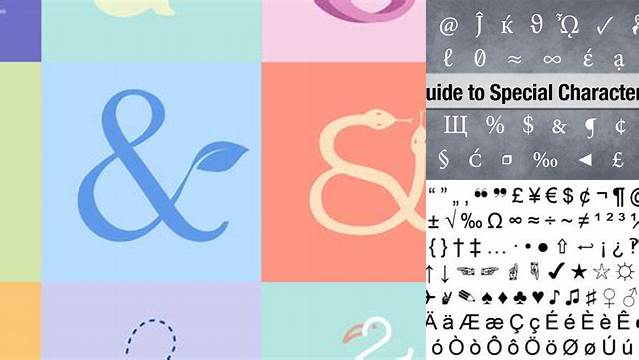
Symbol Fonts: The Complete Guide For Creative Typography
Introduction: Diving into the World of Symbol Fonts
Hey guys! Ever found yourself needing a specific symbol that just isn't on your keyboard? Or wanted to add a unique flair to your designs? Well, you've stumbled upon the right place! Symbols fonts are your gateway to a vast universe of special characters, dingbats, and glyphs that go beyond the standard alphabet and numbers. These fonts are not just about letters; they're about visual communication, expression, and adding that extra touch to your projects. This ultimate guide will walk you through everything you need to know about symbol fonts, from what they are and how they work, to how you can use them to create stunning designs and documents. So, let's jump right in and unlock the power of these fantastic fonts!
In essence, symbol fonts are font families where each character slot is assigned to a symbol, icon, or dingbat instead of a letter, number, or punctuation mark. Think of them as the Swiss Army knives of the typography world, offering a diverse set of tools for visual expression. These fonts can include anything from arrows and bullets to decorative elements, mathematical symbols, and even tiny pictures. The beauty of symbol fonts lies in their versatility. They can be used in a multitude of applications, from graphic design and web development to word processing and presentations. Whether you're creating a logo, designing a website, or just trying to make your resume stand out, symbol fonts can be a game-changer. The symbols are scalable just like any other font character, meaning they can be resized without losing quality. This makes them ideal for use in both print and digital media. Plus, because they are treated as characters, they can be easily styled with different colors, sizes, and effects, giving you even more creative control. Symbol fonts are particularly useful when you need to incorporate specific icons or symbols consistently across a project. Instead of relying on images, which can become pixelated or require additional file management, symbol fonts allow you to use symbols as easily as you would type a letter. This can streamline your workflow and ensure a consistent look and feel throughout your work. They also offer a level of customization that’s hard to achieve with other methods. You can combine different symbols, layer them, and manipulate them in various ways to create unique designs. This makes them an invaluable tool for designers and creatives looking to push the boundaries of visual communication. The best part is that many symbol fonts are available for free, making them accessible to anyone. So, whether you're a professional designer or just starting out, exploring the world of symbol fonts can open up a whole new realm of creative possibilities. Get ready to enhance your projects with a touch of unique visual flair! We'll cover everything from finding the right fonts to using them effectively, ensuring you can make the most of these versatile typographic tools. So, stick around and let's dive deeper into the fascinating world of symbol fonts!
Understanding the Basics of Symbol Fonts
Okay, let's break it down, folks! What exactly are symbol fonts, and how do they actually work? At their core, symbol fonts are typefaces that contain symbols and glyphs instead of traditional letters, numbers, and punctuation marks. Imagine a font where every key you press doesn't produce a letter but instead generates a unique icon, shape, or decorative element. That's the magic of symbol fonts! They expand your typographic toolkit beyond the standard character set, allowing you to add visual interest and communicate in ways that words simply can't. These fonts are built using the same technology as regular fonts, which means they can be scaled to any size without losing quality. This is a huge advantage, especially when you need to use symbols in various contexts, from small icons in a user interface to large decorative elements in a poster. The symbols within these fonts are treated as characters, so you can easily change their color, size, and other attributes using your design software. This flexibility is what makes symbol fonts so powerful and versatile. Unlike images, which can become pixelated when resized, symbols from fonts remain crisp and clear at any scale. This ensures that your designs look professional and polished, no matter how they are displayed or printed. Plus, symbol fonts are easy to integrate into your workflow. Once installed on your system, they can be accessed from any application that supports font selection. This means you can use them in word processors, graphic design software, web development environments, and more. The process of using symbol fonts is also straightforward. You simply select the font in your application and then use a character map or glyph panel to browse the available symbols. Once you find the symbol you want, you can insert it into your document or design just like you would a regular letter. Many applications also support keyboard shortcuts for frequently used symbols, making the process even faster. In addition to their technical advantages, symbol fonts also offer a wide range of creative possibilities. They can be used to add visual hierarchy to your text, create custom bullet points and lists, design unique logos and icons, and even build entire illustrations. The symbols themselves can vary widely, from simple geometric shapes and arrows to intricate illustrations and decorative elements. This diversity allows you to find the perfect symbol for any project, whether you're creating a minimalist design or a complex visual composition. Understanding the basics of symbol fonts is the first step to unlocking their potential. Once you grasp how they work and what they can do, you'll be able to use them effectively in your own projects. So, let's keep exploring the fascinating world of symbol fonts and discover how you can incorporate them into your creative toolkit. Next up, we'll dive into the various types of symbol fonts available and how to choose the right one for your needs. Stay tuned!
Types of Symbol Fonts: Exploring the Variety
Alright, let's get into the nitty-gritty of symbol fonts! Did you know there's a whole universe of different types out there? It's not just a one-size-fits-all situation, guys. Understanding the various types of symbol fonts will help you choose the right one for your specific needs and projects. So, let's explore the awesome variety available! Firstly, we have Dingbat fonts. Think of these as the OGs of symbol fonts. Dingbats are fonts that contain a collection of symbols, icons, and decorative elements instead of letters. They can include anything from arrows and bullets to stars and flowers. Dingbat fonts are fantastic for adding visual flair to documents, creating custom bullet points, and designing eye-catching graphics. They are often used in print design, but they can also be used in web design and other digital applications. Next up are Icon fonts. These fonts are specifically designed to contain a set of icons, typically for use in user interfaces and web design. Icon fonts are a super efficient way to include scalable icons in your projects. Instead of using image files, which can slow down page load times and become pixelated when resized, icon fonts allow you to use icons as characters, which scale seamlessly and can be styled with CSS. This makes them ideal for creating responsive designs that look great on any device. Common icon font sets include icons for navigation, social media, and various other UI elements. Then, there are Pictogram fonts. Pictogram fonts are similar to icon fonts, but they often include more detailed and illustrative symbols. These fonts can be used to create infographics, diagrams, and other visual representations of data. Pictograms are particularly useful for communicating information quickly and effectively. They can convey complex concepts in a simple and visually appealing way. For example, a pictogram font might include symbols for different modes of transportation, types of food, or weather conditions. Another category is Ornamental fonts. These fonts contain decorative elements and flourishes that can be used to add a touch of elegance and sophistication to your designs. Ornamental fonts often include swashes, borders, and other decorative elements that can be combined to create unique patterns and designs. They are commonly used in wedding invitations, greeting cards, and other formal documents. Ornamental fonts can also be used to add a vintage or artistic feel to your projects. We also have Mathematical symbol fonts. These fonts are designed specifically for including mathematical symbols and operators in documents and equations. They typically include a comprehensive set of symbols, such as Greek letters, fractions, integrals, and other mathematical notation. Mathematical symbol fonts are essential for anyone working with scientific or technical documents. They ensure that mathematical expressions are displayed correctly and consistently. Lastly, let's talk about Unicode symbol fonts. Unicode is a universal character encoding standard that aims to include every character from every language in the world. Unicode symbol fonts contain a wide range of symbols from various scripts and languages, including mathematical symbols, currency symbols, and other special characters. These fonts are incredibly versatile and can be used to display characters that are not included in standard font sets. Understanding these different types of symbol fonts will help you make informed choices when selecting fonts for your projects. Each type has its own unique characteristics and applications, so it's important to consider your specific needs and goals when making your selection. Whether you're looking for simple icons, decorative elements, or specialized symbols, there's a symbol font out there that's perfect for you. So, let's move on and explore how to find and choose the best symbol fonts for your needs!
Finding and Choosing the Right Symbol Fonts
Okay, so you're ready to dive into the world of symbol fonts and find the perfect ones for your projects, right? Awesome! But with so many options out there, how do you even start? Don't worry, guys, I've got you covered. Finding and choosing the right symbol fonts can seem daunting at first, but with a little guidance, you'll be a pro in no time. First things first, let's talk about where to find these gems. The internet is your best friend here! There are countless websites and resources offering a wide variety of symbol fonts, both free and paid. Some popular websites for finding free fonts include DaFont, FontSpace, and Google Fonts. These sites offer a huge selection of fonts, including many symbol fonts, and they often have user reviews and ratings to help you make your decision. For premium fonts, you can check out sites like MyFonts, Adobe Fonts, and Creative Market. These sites offer high-quality fonts from professional designers, but they typically come with a price tag. However, the investment can be worth it if you need fonts for commercial projects or want a more polished and professional look. When browsing for symbol fonts, it's helpful to know what you're looking for. Think about the specific symbols you need and the overall style you want to achieve. Are you looking for simple icons for a user interface? Ornate decorative elements for a wedding invitation? Mathematical symbols for a scientific paper? The more specific you are, the easier it will be to narrow down your options. Once you've found a few fonts that catch your eye, it's important to preview them carefully. Most font websites offer a preview feature that allows you to see what the symbols look like before you download the font. Take advantage of this feature and make sure the symbols meet your needs. Look for fonts that are well-designed, easy to read, and consistent in style. You should also check the character map or glyph panel for the font to see the full range of symbols available. This will give you a better idea of whether the font has all the symbols you need for your project. Another crucial factor to consider is the font license. If you're using fonts for commercial projects, you'll need to make sure you have the appropriate license. Free fonts often come with restrictions on commercial use, so it's important to read the license agreement carefully. Premium fonts typically offer more flexible licensing options, but they may still have certain restrictions. Don't skip this step, guys! Ignoring font licenses can lead to legal trouble down the road. In addition to licensing, you should also think about compatibility. Make sure the font is compatible with your operating system and the software you'll be using. Most fonts are available in multiple formats, such as TrueType (TTF) and OpenType (OTF), so you should be able to find a version that works with your system. It's also a good idea to test the font in your software before using it extensively in a project. This will help you identify any potential issues and ensure that the font displays correctly. Choosing the right symbol fonts can make a huge difference in the look and feel of your designs. By taking the time to research your options, preview fonts carefully, and consider licensing and compatibility, you can find the perfect fonts for your projects. So, let's move on and explore how to actually use these fantastic fonts in your work!
How to Use Symbol Fonts in Your Designs and Documents
Alright, you've got your symbol fonts all picked out and ready to go – now what? Let's dive into the practical side of things, guys! Knowing how to effectively use symbol fonts in your designs and documents is key to unlocking their full potential. It's not just about having the fonts; it's about using them in a way that enhances your work and communicates your message clearly. First off, let's talk about accessing the symbols. As we discussed earlier, symbol fonts don't have traditional letters and numbers assigned to the keys on your keyboard. Instead, they contain a variety of symbols and glyphs. So, how do you actually type these symbols? The answer lies in character maps and glyph panels. Most operating systems and design software include a character map or glyph panel that allows you to browse and select symbols from any installed font. In Windows, you can access the Character Map by searching for it in the Start menu. In macOS, you can use the Character Viewer, which can be found in the Input Sources menu. In design software like Adobe Photoshop, Illustrator, and InDesign, you'll find glyph panels that offer a similar functionality. These panels often provide more advanced features, such as the ability to search for symbols by name or Unicode value. To use a symbol, simply open the character map or glyph panel, select the font you want to use, browse the available symbols, and then click or double-click on the symbol to insert it into your document. Some applications also allow you to copy and paste symbols from the character map or glyph panel into your text. Once you've inserted a symbol, you can treat it just like any other character in your text. You can change its size, color, and other attributes using your software's formatting tools. This flexibility is one of the greatest advantages of using symbol fonts. You can easily customize the appearance of symbols to match your design aesthetic. Now, let's talk about some specific ways you can use symbol fonts in your projects. One common use case is creating custom bullet points and lists. Instead of using the standard bullet point characters, you can use symbols from a font to create unique and eye-catching lists. For example, you could use stars, arrows, or checkmarks to add visual interest to your lists. Symbol fonts are also fantastic for designing logos and icons. You can combine different symbols, layer them, and manipulate them in various ways to create unique and memorable logos. The scalability of symbol fonts makes them ideal for logo design, as they can be resized without losing quality. Another popular use case is adding decorative elements to documents and designs. You can use ornamental symbols and flourishes to add a touch of elegance and sophistication to your work. These elements can be used to create borders, dividers, and other decorative accents. Symbol fonts can also be used to create infographics and diagrams. Pictogram fonts, in particular, are well-suited for this purpose. You can use symbols to represent data and concepts in a visual and engaging way. This can make your infographics more effective and easier to understand. When using symbol fonts, it's important to consider the overall design and aesthetic of your project. Choose symbols that are consistent with your brand identity and the message you're trying to convey. Don't overcrowd your design with too many symbols, and make sure the symbols you use are easy to read and understand. Experiment with different symbols and combinations to find what works best for your project. The possibilities are endless, so don't be afraid to get creative! Using symbol fonts effectively can elevate your designs and documents to a whole new level. By mastering the techniques we've discussed, you'll be able to add visual interest, communicate more effectively, and create designs that truly stand out. So, let's move on to the next topic and explore some advanced tips and tricks for working with symbol fonts!
Advanced Tips and Tricks for Working with Symbol Fonts
Alright, you've got the basics down, but let's kick it up a notch, shall we? It's time to dive into some advanced tips and tricks for working with symbol fonts that will really make your designs shine. These little nuggets of wisdom can take your symbol font game from good to amazing, so listen up, guys! First off, let's talk about combining symbol fonts. Don't be afraid to mix and match symbols from different fonts to create unique and interesting designs. This can add depth and complexity to your work, and it's a great way to create a custom look. However, it's important to do this carefully. Choose fonts that complement each other in style and weight, and make sure the symbols you combine work well together visually. You don't want your design to look cluttered or chaotic. Another trick is to use symbol fonts in conjunction with traditional text fonts. This can be a powerful way to add visual hierarchy and emphasis to your text. For example, you could use symbols to create custom bullet points, section dividers, or decorative elements that complement your text. When combining symbol fonts with text fonts, pay attention to the overall balance and harmony of your design. Choose font pairings that are visually appealing and easy to read. You can also experiment with different colors and sizes to create contrast and interest. Let's talk about creating custom symbols. Did you know you can actually modify existing symbols or even create your own from scratch? Some design software, like Adobe Illustrator, allows you to convert symbols from fonts into editable vector graphics. This means you can manipulate the shapes and paths of the symbols to create custom designs that are perfectly tailored to your needs. This is a fantastic way to create unique logos, icons, and decorative elements. It requires a bit more technical skill, but the results can be well worth the effort. You can also use symbol fonts for masking and clipping. Masking and clipping are techniques that allow you to show only a portion of an image or graphic by using another shape as a mask. You can use symbols from fonts as masks to create interesting visual effects. For example, you could use a star symbol to mask a photograph, creating a star-shaped image. This is a creative way to add visual interest and depth to your designs. Another tip is to use symbol fonts for data visualization. As we discussed earlier, pictogram fonts are great for creating infographics and diagrams. But you can also use other symbol fonts to represent data in a visually appealing way. For example, you could use a series of icons to represent different categories of data, or you could use symbols to create a visual representation of trends and patterns. This can make your data more engaging and easier to understand. Don't forget about kerning and tracking! Kerning and tracking are typographic adjustments that affect the spacing between characters. When working with symbol fonts, it's important to pay attention to kerning and tracking to ensure that your symbols are spaced properly. Some symbols may need to be kerned closer together or further apart to create a balanced and visually appealing look. Finally, experiment with different colors and effects. Symbol fonts don't have to be black and white! You can use color, gradients, and other effects to enhance the appearance of your symbols. This can add depth, dimension, and visual interest to your designs. By mastering these advanced tips and tricks, you'll be able to take your symbol font skills to the next level. So, let's wrap things up and summarize the key takeaways from this ultimate guide!
Conclusion: Mastering the Art of Symbol Fonts
Well, guys, we've reached the end of our epic journey through the world of symbol fonts! You've learned what they are, how they work, the different types available, how to find and choose the right ones, how to use them effectively, and even some advanced tips and tricks. Phew! That's a lot, but I'm confident you're now well-equipped to master the art of symbol fonts. The key takeaway here is that symbol fonts are incredibly versatile and powerful tools for visual communication. They allow you to add unique and expressive elements to your designs and documents, going beyond the limitations of traditional text fonts. Whether you're a graphic designer, web developer, student, or anyone else who wants to enhance their visual creations, symbol fonts can be a game-changer. Remember, symbol fonts aren't just about adding pretty pictures to your work. They're about communicating effectively and engaging your audience. By using symbols thoughtfully and strategically, you can convey complex ideas, add visual interest, and create designs that truly stand out. Don't be afraid to experiment and push the boundaries of what's possible with symbol fonts. Try combining different fonts, creating custom symbols, and using symbols in unexpected ways. The more you play around, the more you'll discover the endless possibilities they offer. As you continue to explore the world of symbol fonts, remember to stay curious and keep learning. The field of typography is constantly evolving, and there are always new fonts, techniques, and trends to discover. By staying up-to-date and continuing to hone your skills, you'll be able to create even more stunning and effective designs. So, go forth and conquer the world of symbol fonts! Use your newfound knowledge to create amazing things and share your creations with the world. And most importantly, have fun! Designing with symbol fonts should be an enjoyable and rewarding experience. Embrace the challenge, unleash your creativity, and let your imagination run wild. Thanks for joining me on this adventure, guys! I hope you've found this guide helpful and inspiring. Now go out there and make some typographic magic happen!